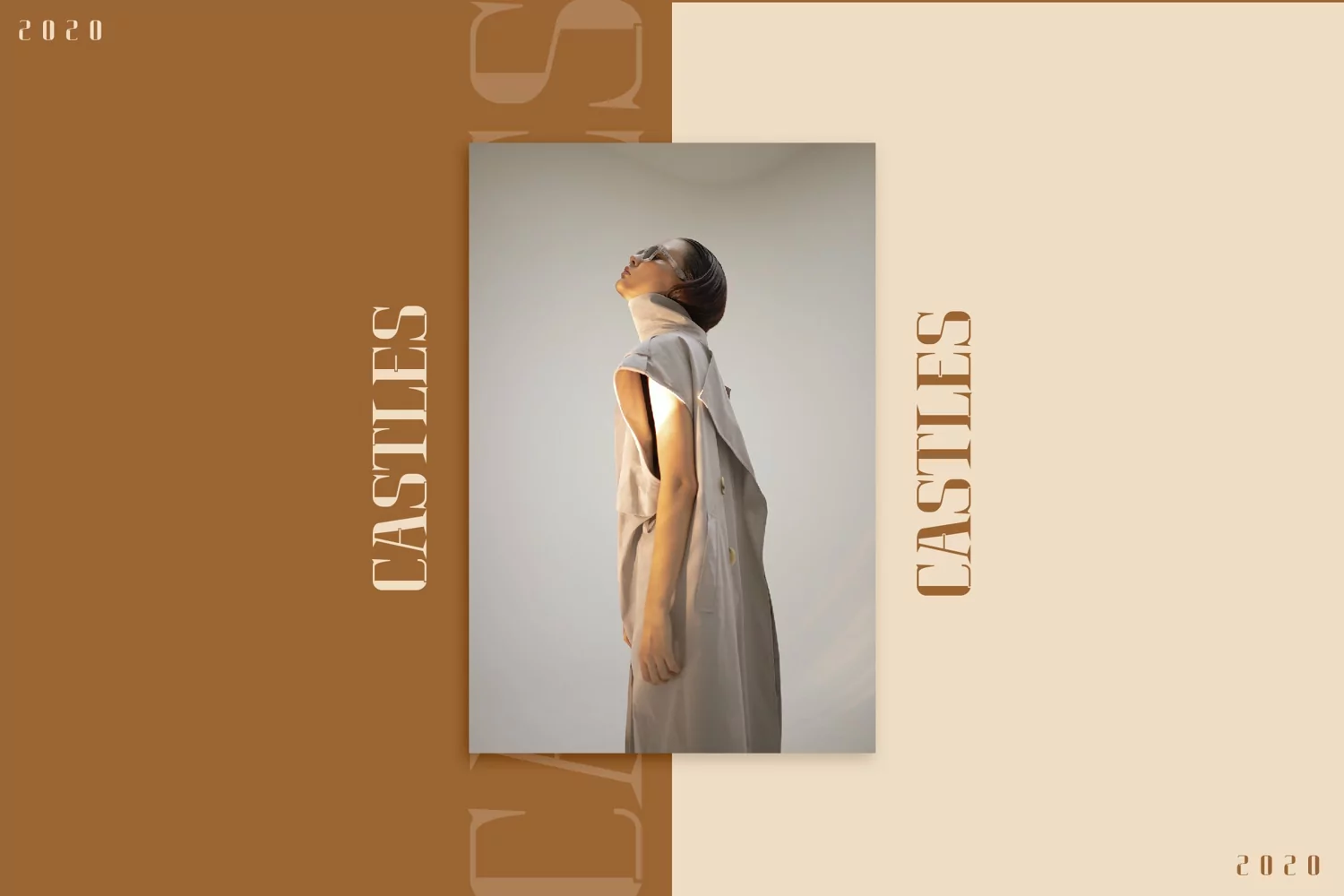
The Castle - Royal and Classic Serif
Suitable for any design needs : logo, branding, modern advertising design, magazine, boutique, hotel, royal design, travel, book, logos, poster quote, book / cover Title, editorial design, website / blog, card, custom mug, pillow, t-shirts, and any hand-lettered needs.